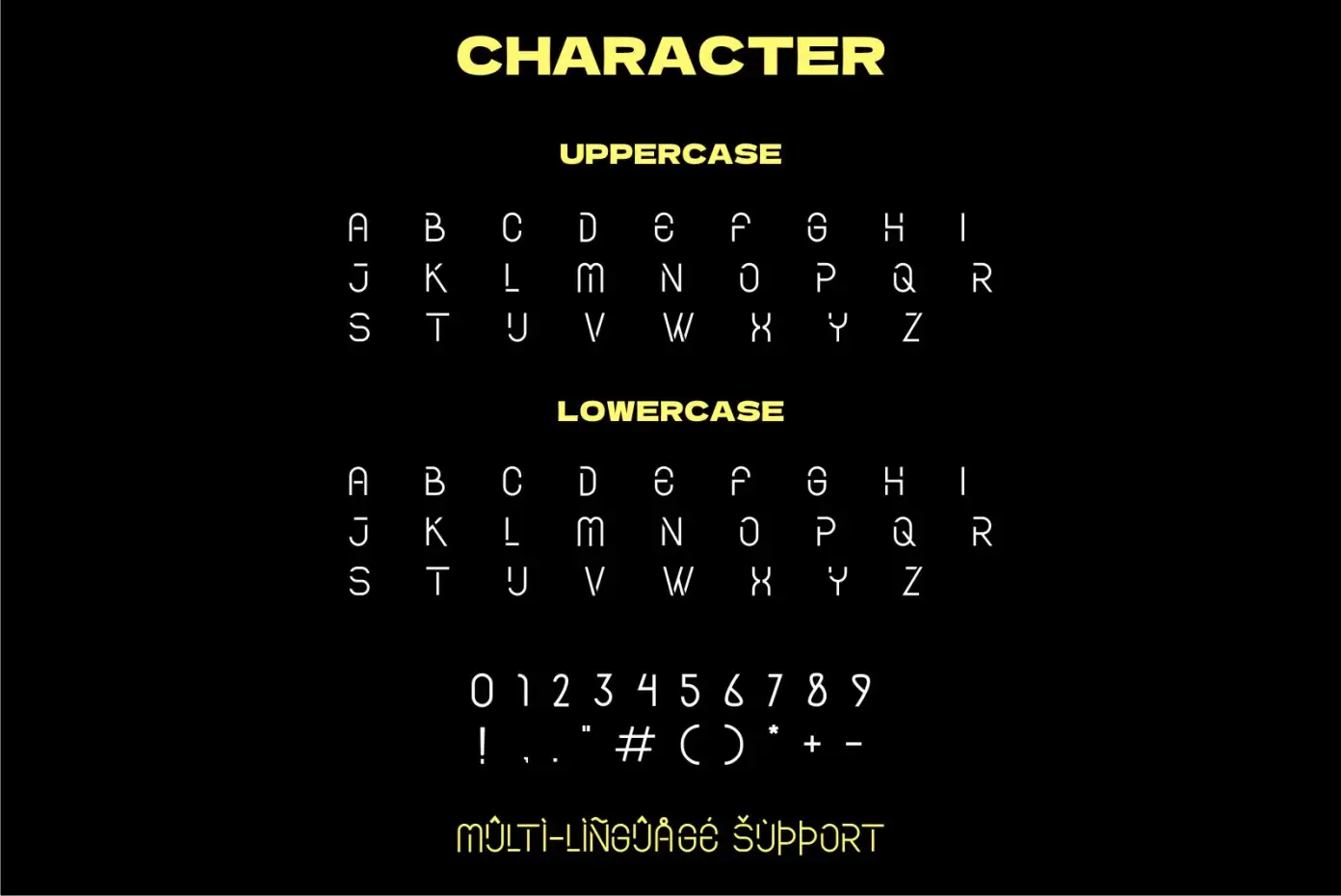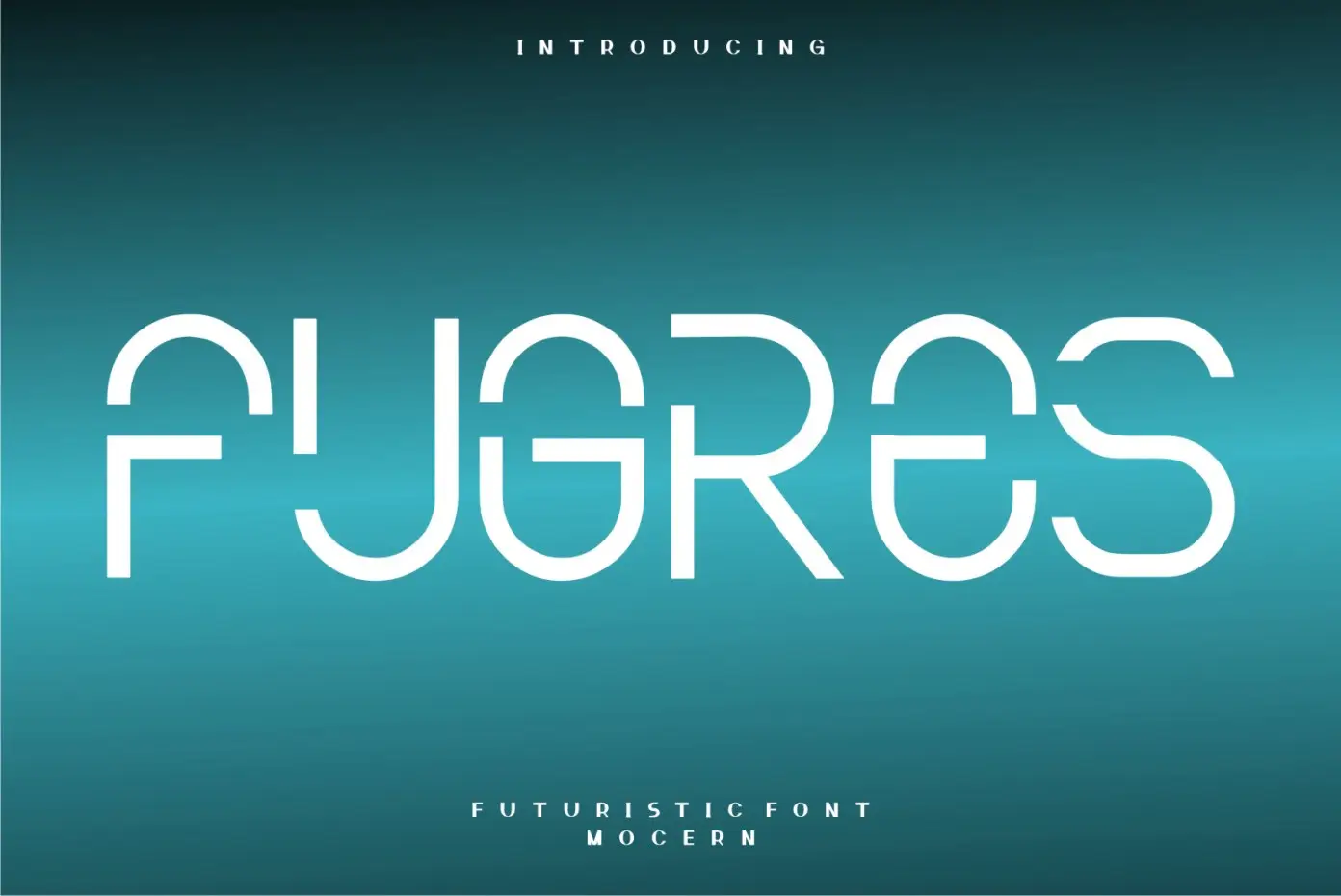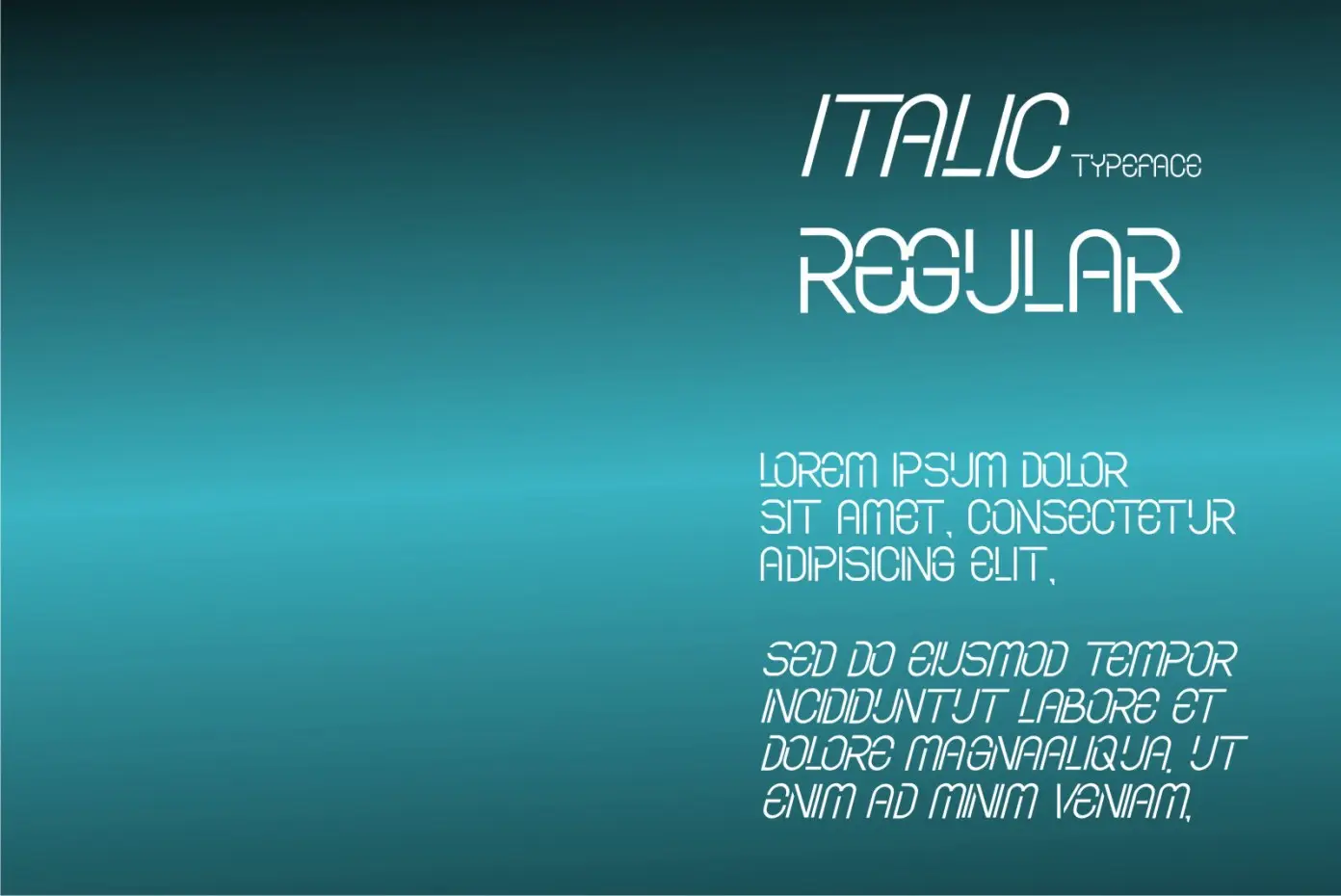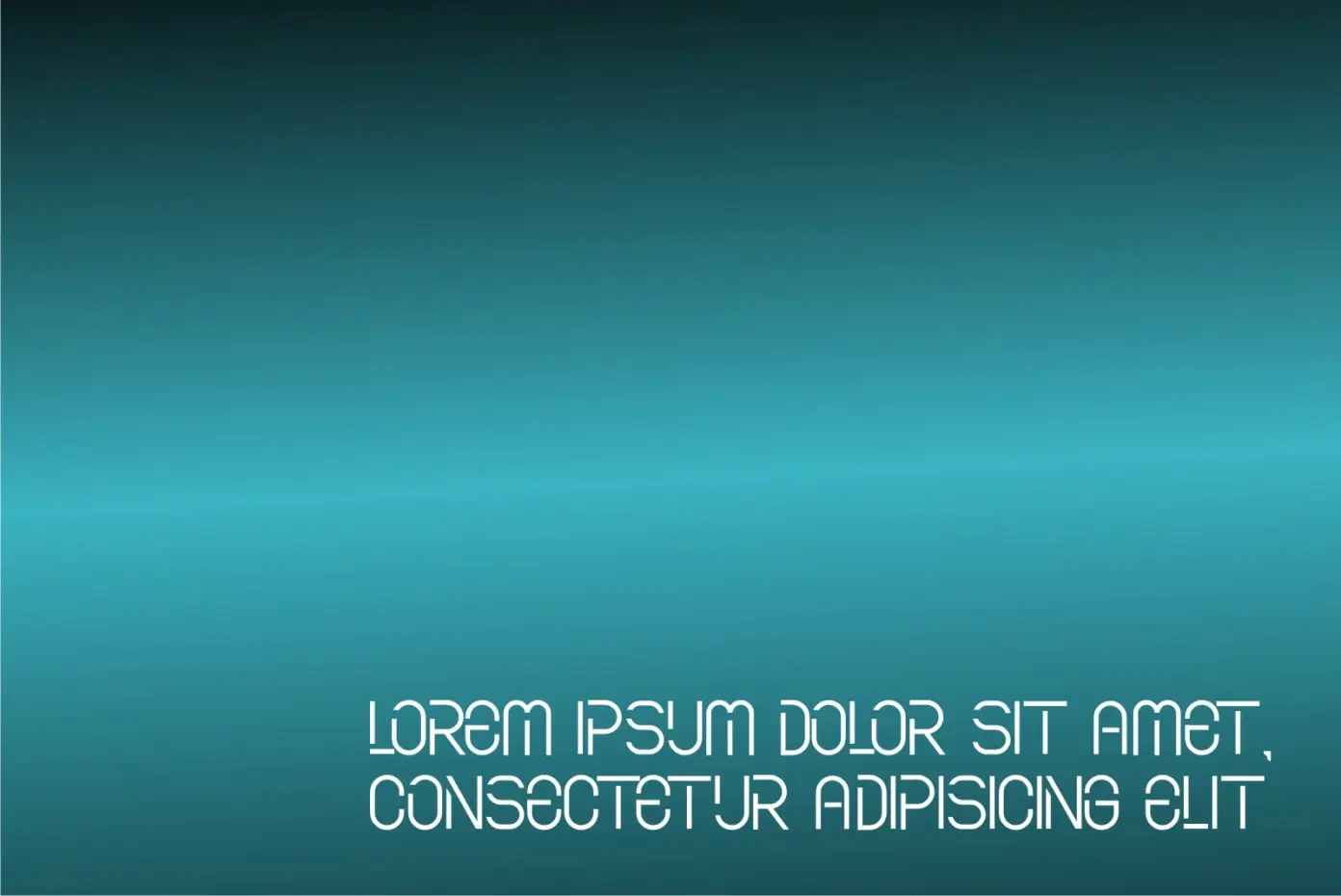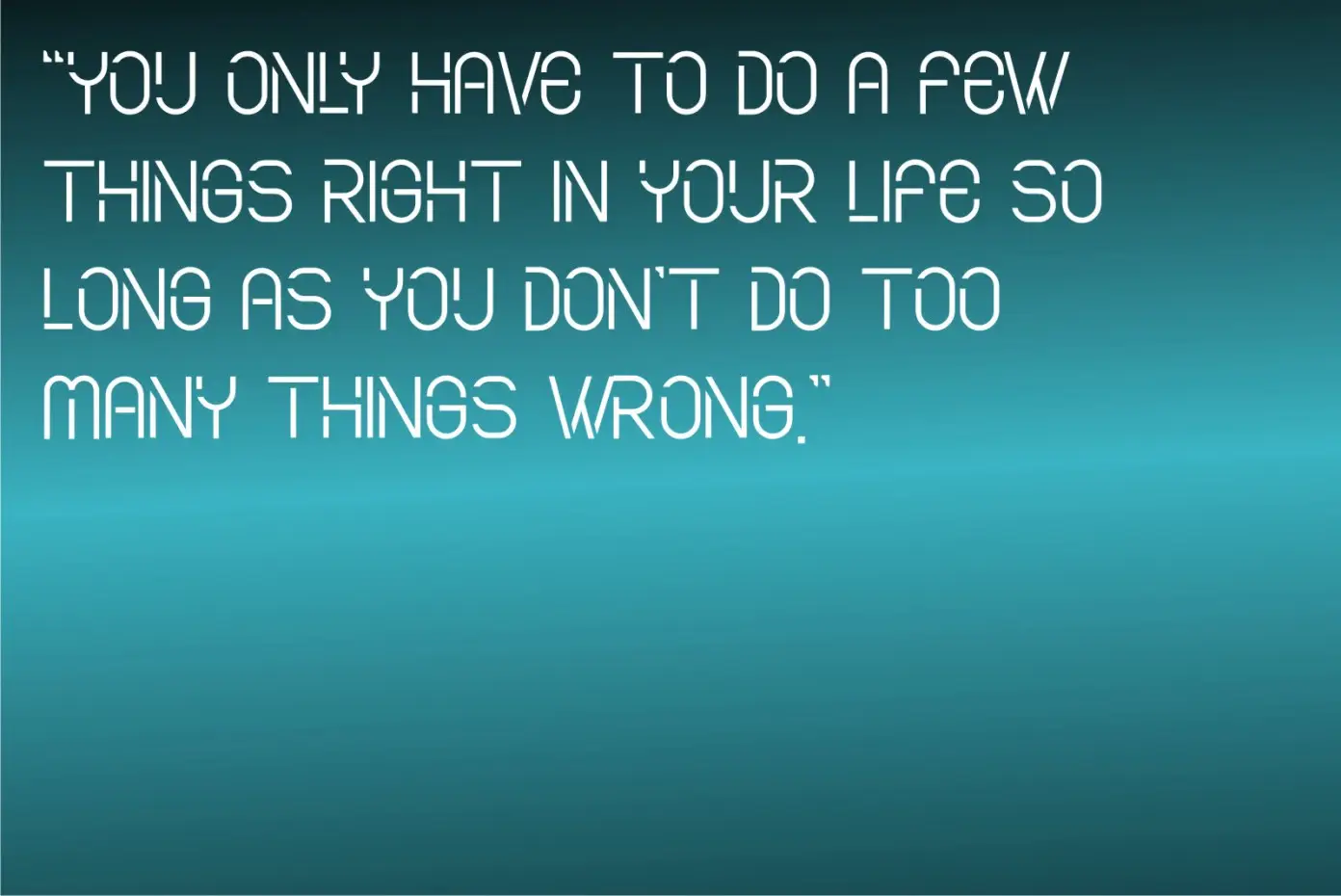
Fugres Font
The Fugres Font is a versatile typeface that combines elegance with modern design. Perfect for a variety of applications, this font is suitable for branding, logos, web design, print materials, and user interfaces.
• Multiple weights for flexibility
• Easy to read at various sizes
• Ideal for headers, body text, and promotional materials
• Combine with complementary fonts for a cohesive look